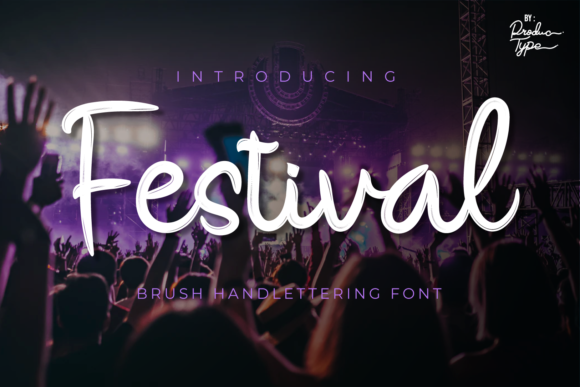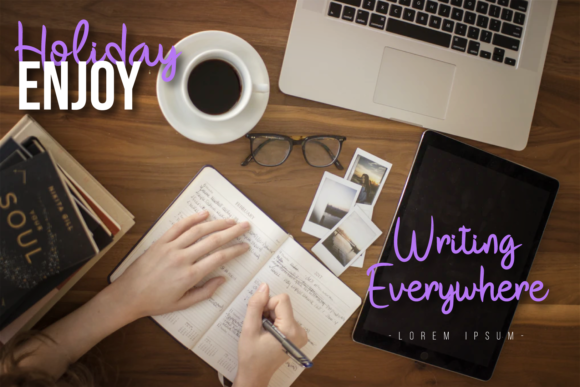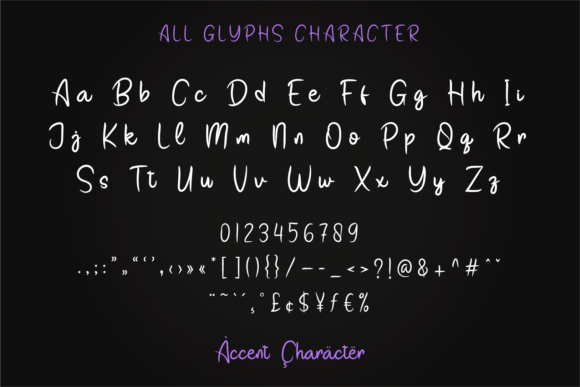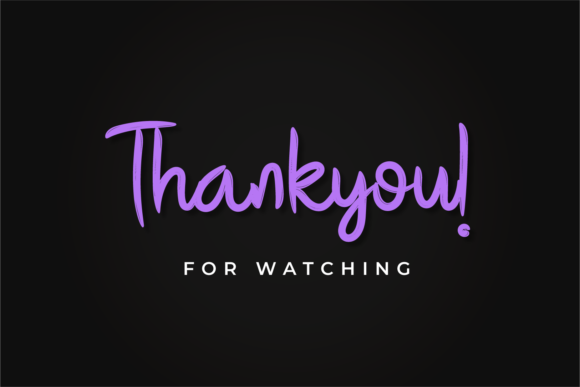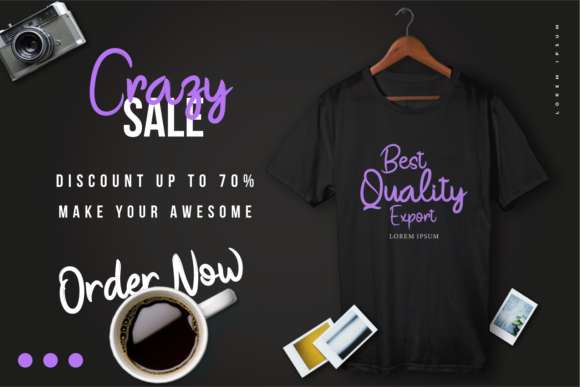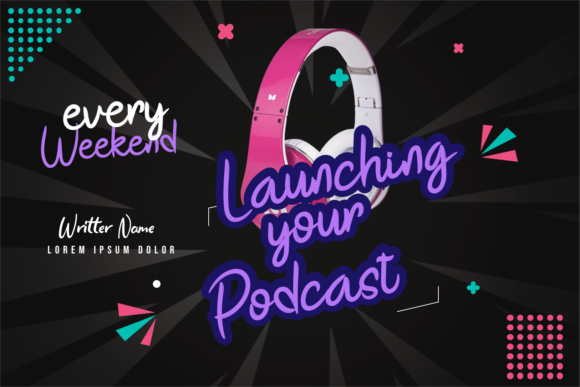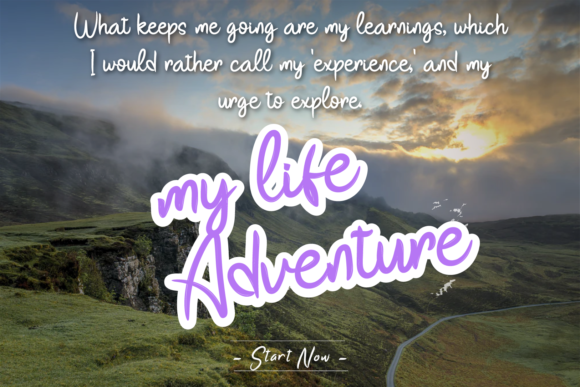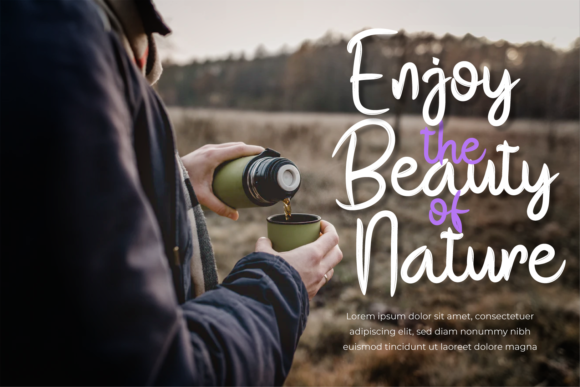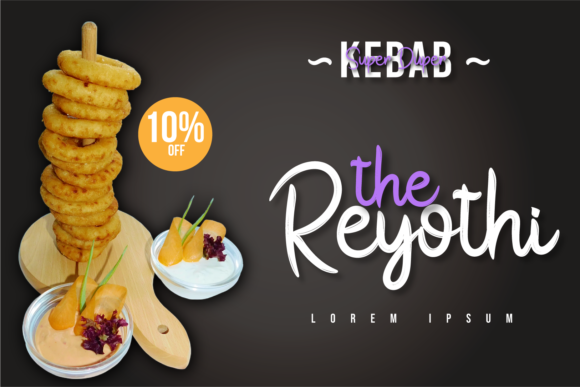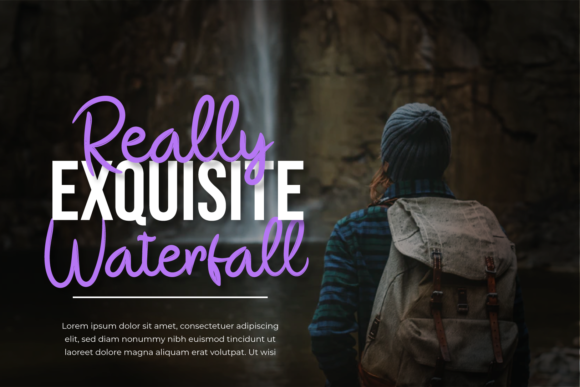
Festival Font
About Festival Font
Introducing Festival: The Sweet, Whimsical, and Flowing Brushed Handwritten Font
Embrace the magic of Festival, a font that effortlessly combines sweetness, whimsy, and flow with its brushed handwritten charm. With its trendy style, Festival is the perfect choice to enhance your project ideas, adding a touch of enchantment to your designs.
Festival’s sweet and whimsical appeal brings a sense of joy and playfulness to your projects. Its flowing letterforms create an elegant and graceful vibe, making your text dance across the canvas with charm and grace.
As a brushed handwritten font, Festival carries a touch of spontaneity and authenticity. Each stroke bears the beauty of handcrafted art, making your designs feel truly special and captivating.
The font’s trendy style adds a contemporary edge to your creations. Whether you’re designing for a festival event, party invitations, or artistic displays, Festival fits seamlessly, setting the perfect tone for your project ideas.
Embrace the flowing charm of Festival as you embark on creative endeavors. Let it be the muse that inspires your designs, adding a touch of whimsy and magic to every piece of art you create.
As you explore the potential of Festival, you’ll find it to be a font that elevates your project ideas to new heights. Its sweet, whimsical, and flowing brushed handwritten beauty breathes life into your work, ensuring that your creations stand out with a delightful allure.
So, let Festival be the font that sets your creativity free. Embrace its trendy style, and watch as your projects come to life with a touch of elegance and whimsy. With Festival as your go-to font, your designs will evoke emotions, captivate your audience, and leave a lasting impression. Unleash the magic of Festival and create designs that enchant and inspire!